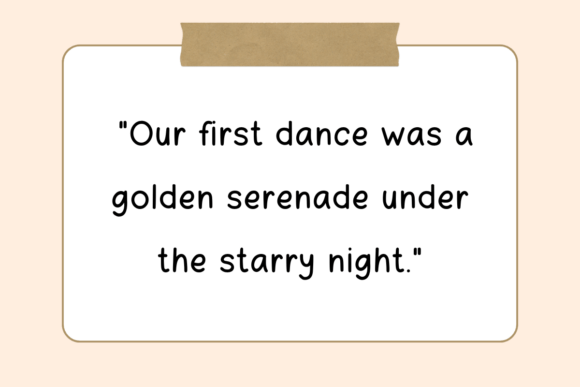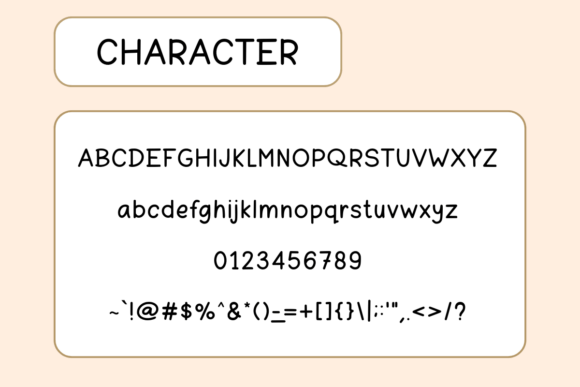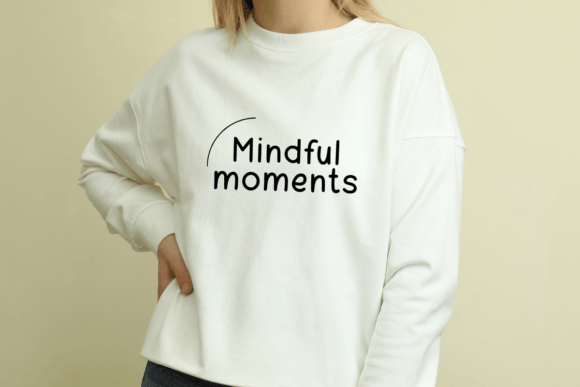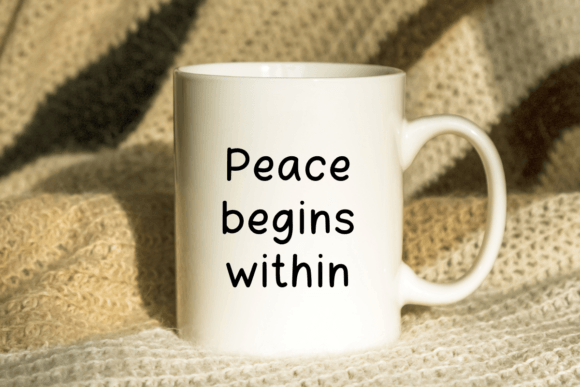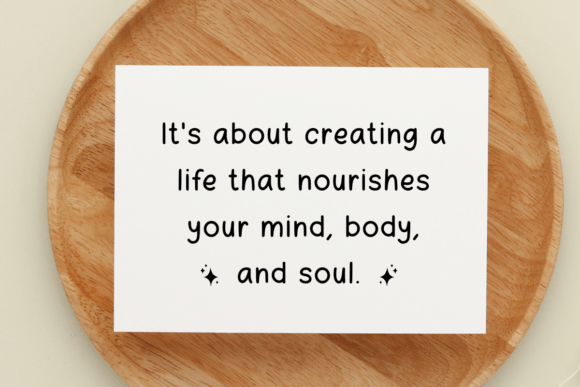
Introduction to Golden Serenade Font
Golden Serenade is a fun cute handwritten sans serif font.
Golden Serenade is a fun cute handwritten sans serif font. A font suitable for memos, journals, notes, planners, interior KDPs, cards, teacher, greeting card, invitations, scrapbooks, paper, diary, pr
Key Features of Golden Serenade Font